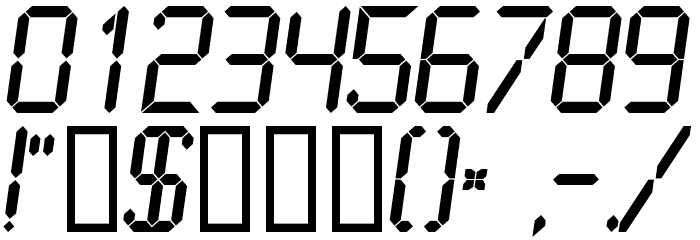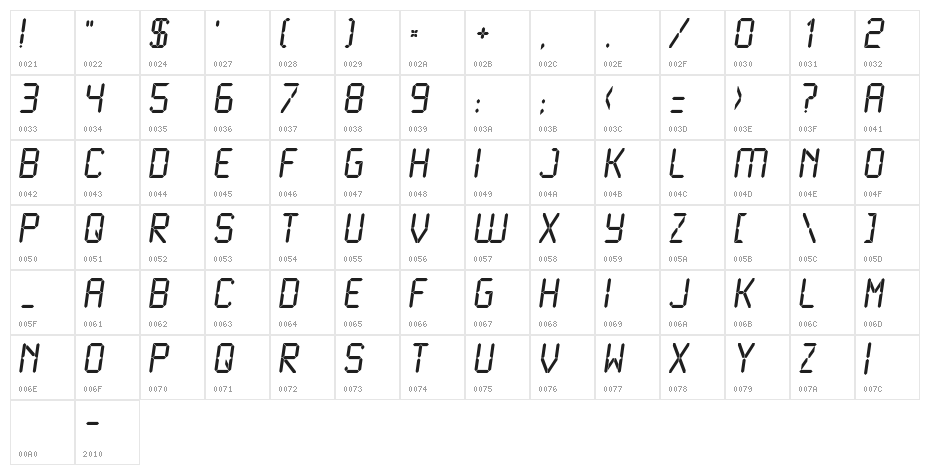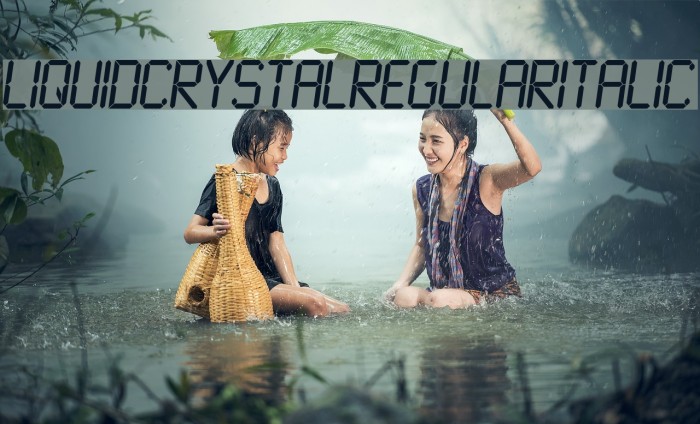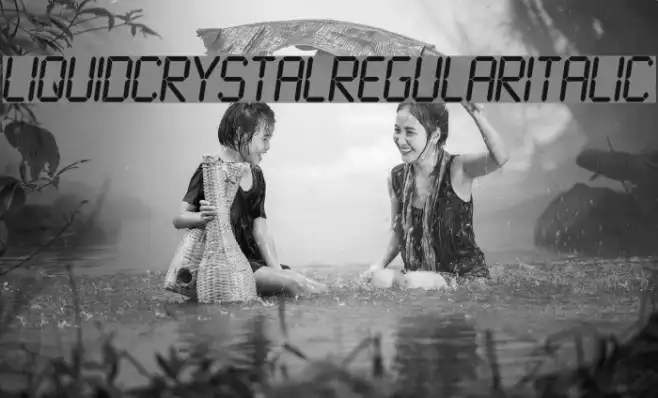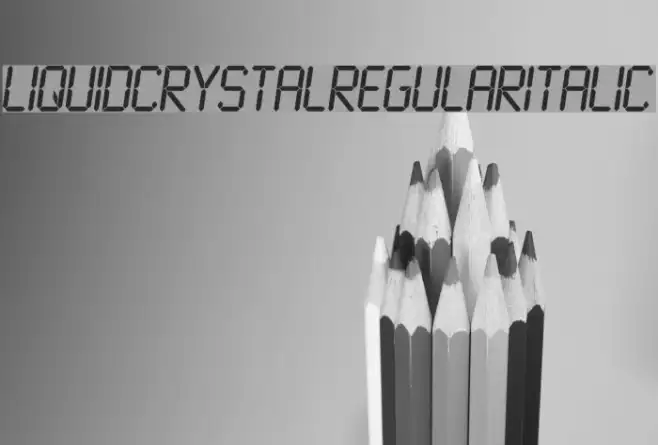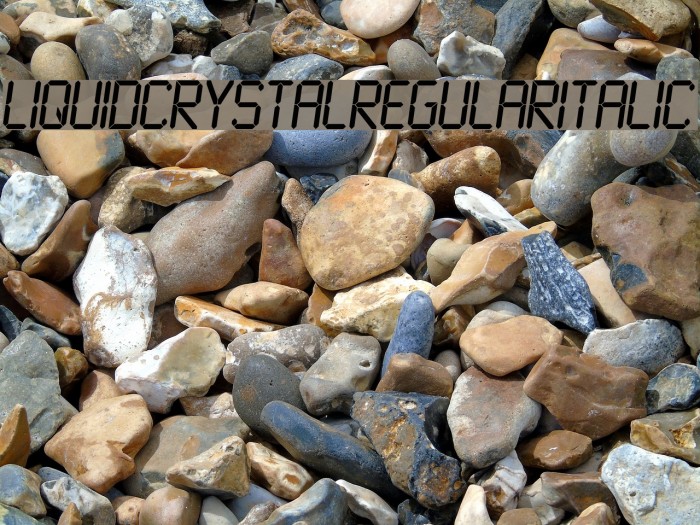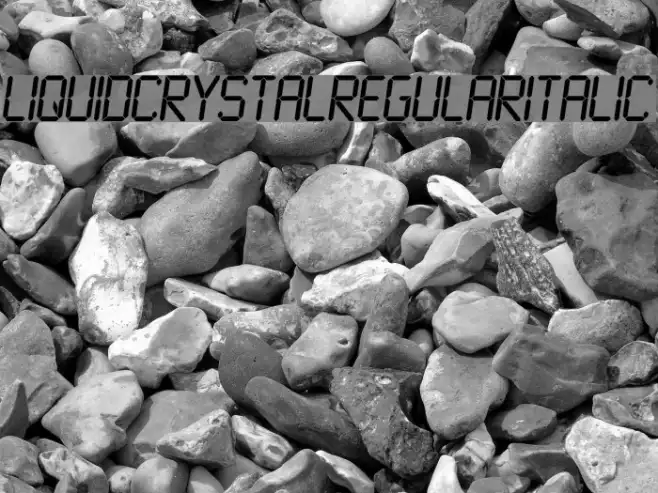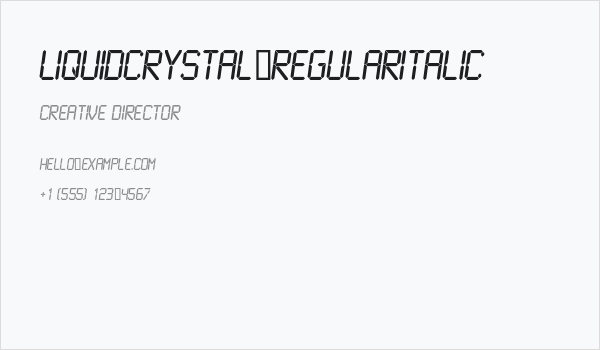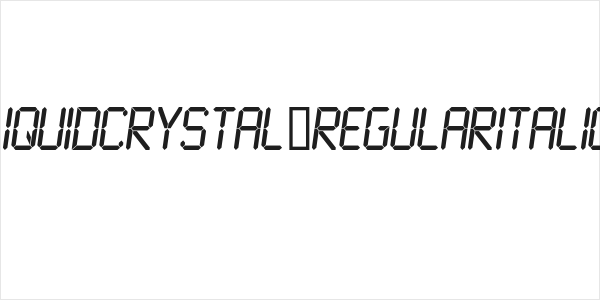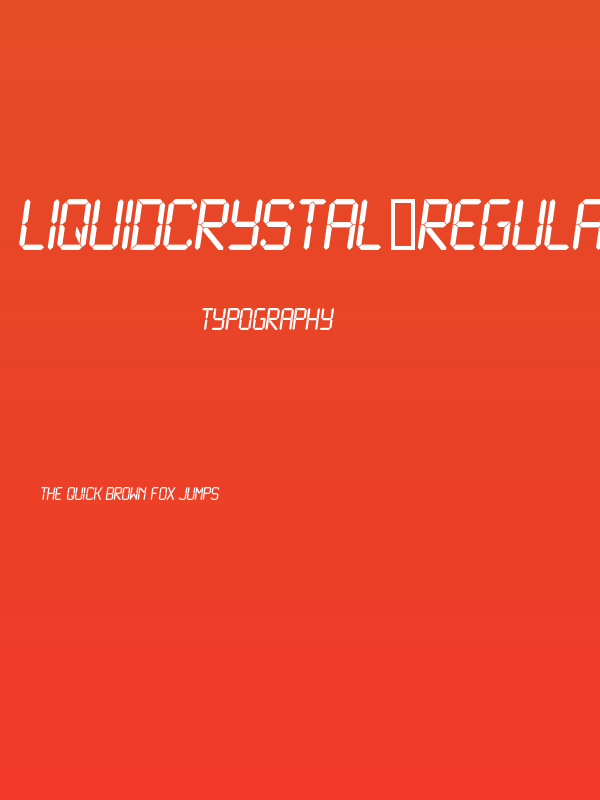
LiquidCrystal-RegularItalic Font
LiquidCrystal-RegularItalic Description
This font features a distinctive digital style reminiscent of old LCD displays, characterized by its segmented, geometric letterforms. The characters are composed of straight lines and sharp angles, creating a futuristic and technical appearance. The italic slant adds a dynamic and modern touch, enhancing its digital aesthetic. The uppercase and lowercase letters maintain a consistent design, with numerals and special characters following the same segmented pattern. This font is ideal for projects that require a retro-futuristic or tech-inspired look, offering a unique blend of nostalgia and modernity.
| Use Case | Headlines, Logos, Digital displays |
| Proposed Projects | Ideal for tech-themed designs, digital interfaces, retro-futuristic branding, and electronic product packaging. |